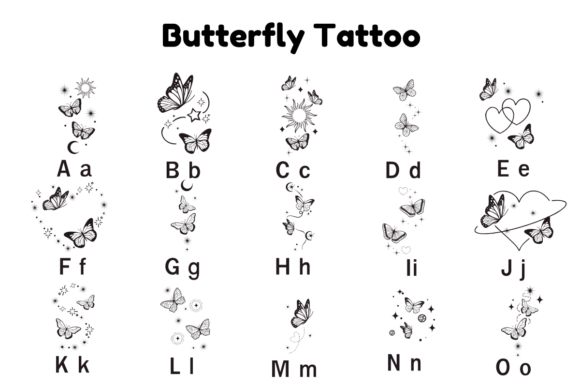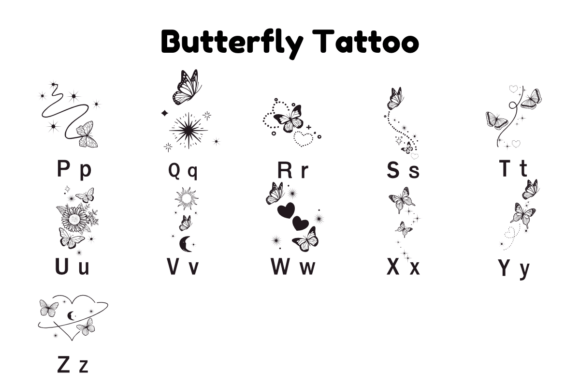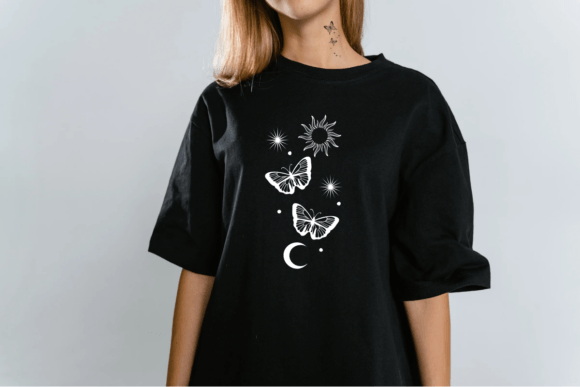
Butterfly Tattoo Font
A Butterfly Tattoo dingbat font features simple, decorative designs of butterflies, perfect for adding a whimsical, natural touch to any text or artwork. Each character in the font represents a different butterfly design, ideal for creative projects, tattoos, or graphic designs